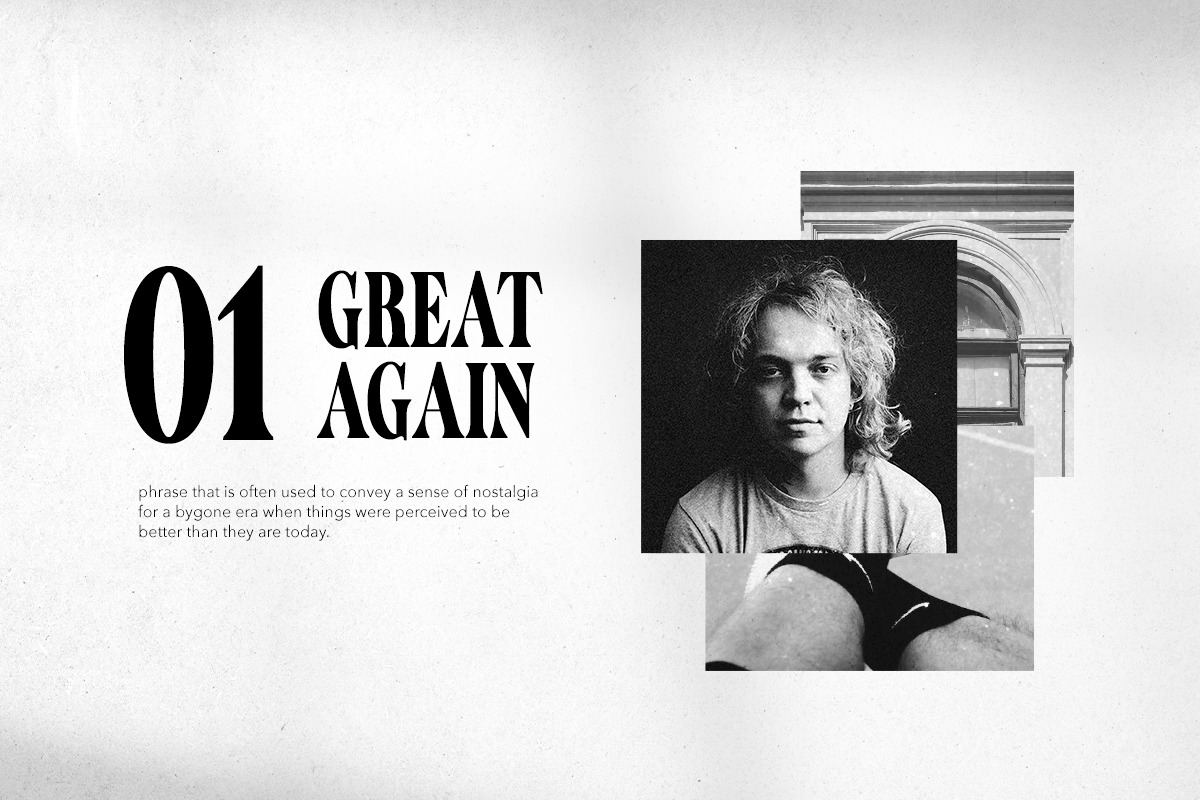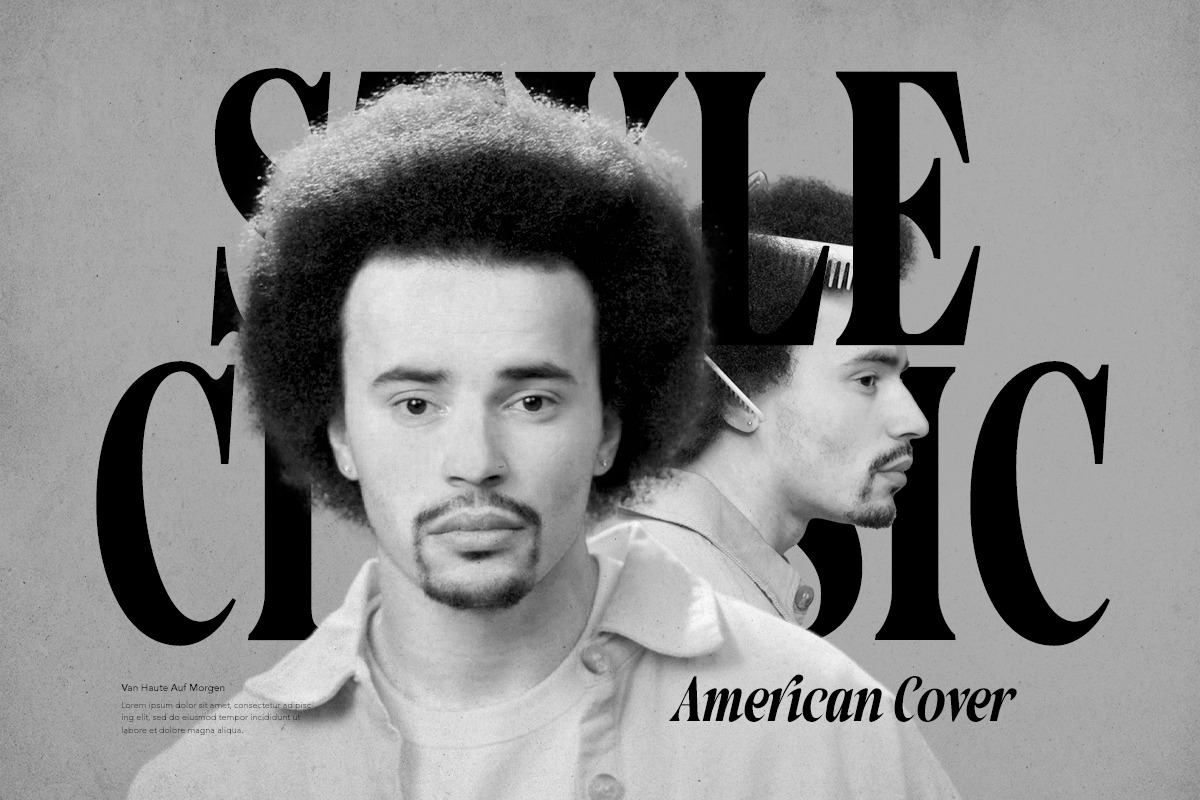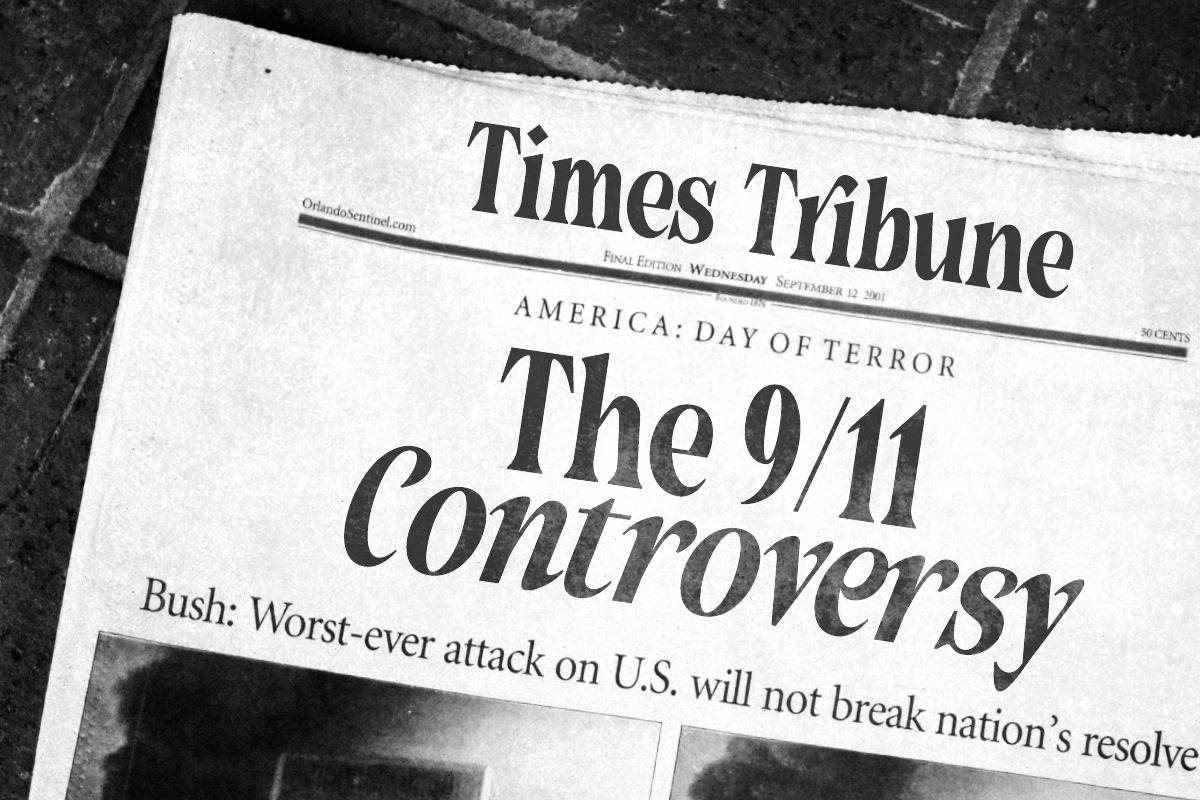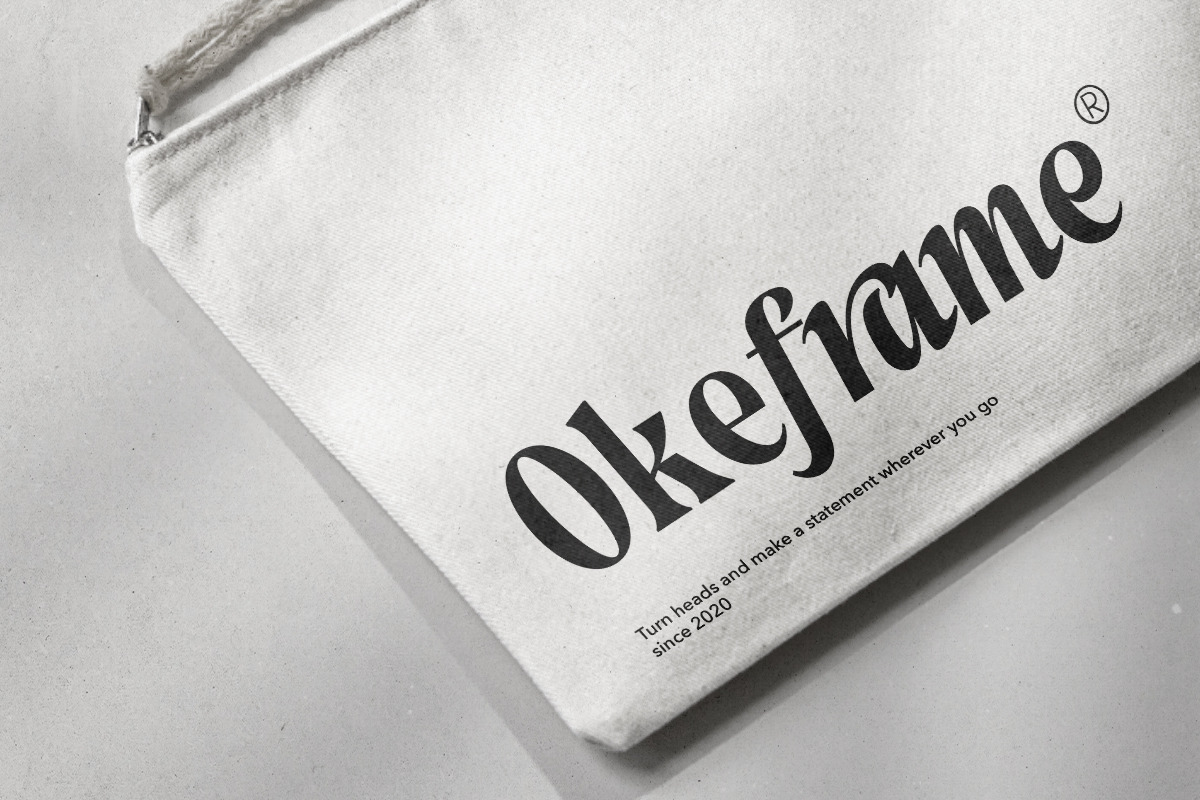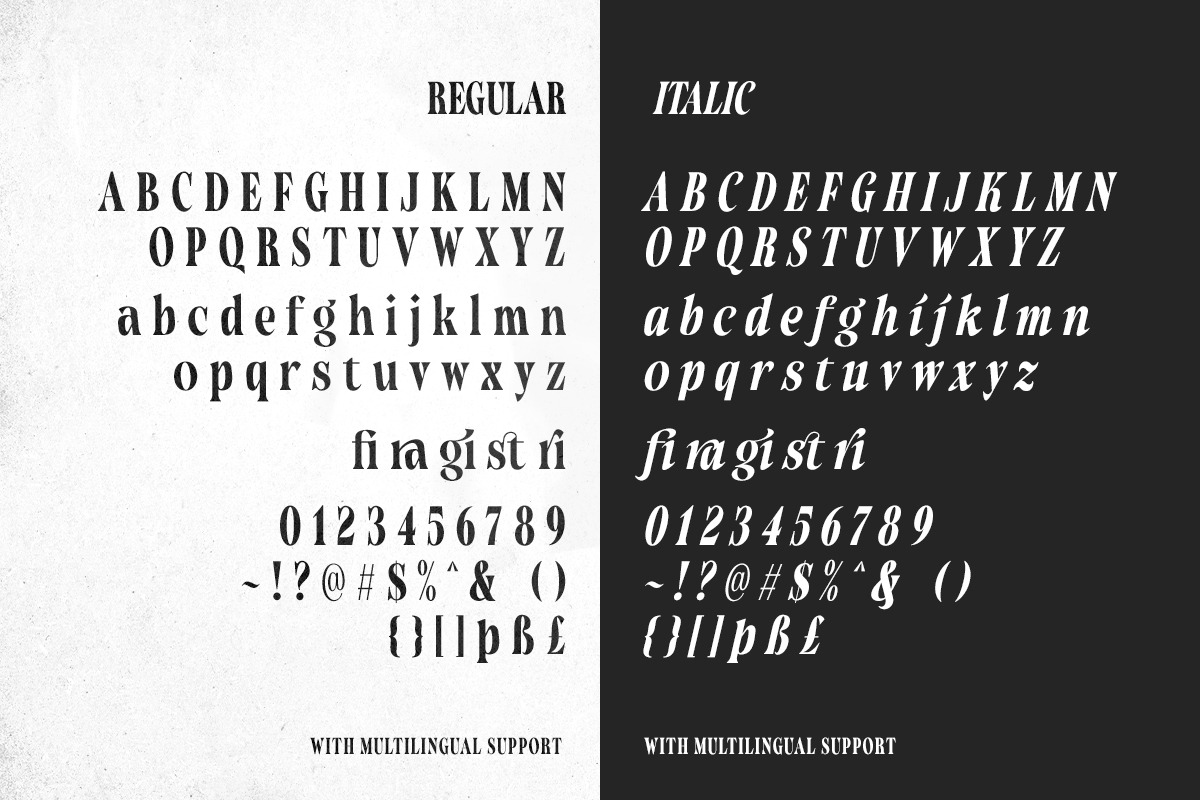
Autograde - Strong Bold Serif
Introducing, new bold font, Autograde - a regular and italic serif!
Autograde is a strong bold headline serif with regular and italic style that will make your presentation or logo even more stunning and powerful! This font will make your project looks strong, chic, and presentable. You can use this font for poster, event, or your social media post. Autograde also support Multi Language.